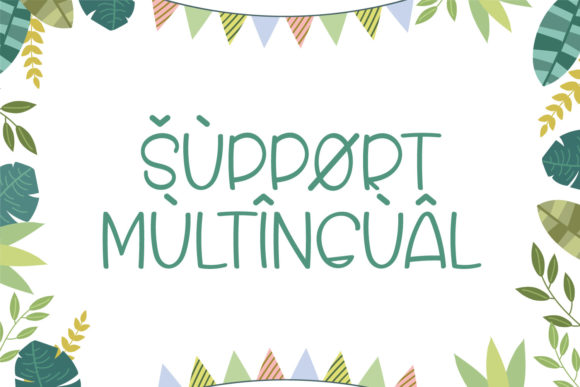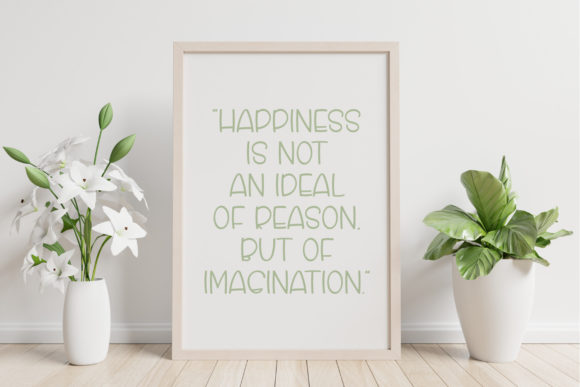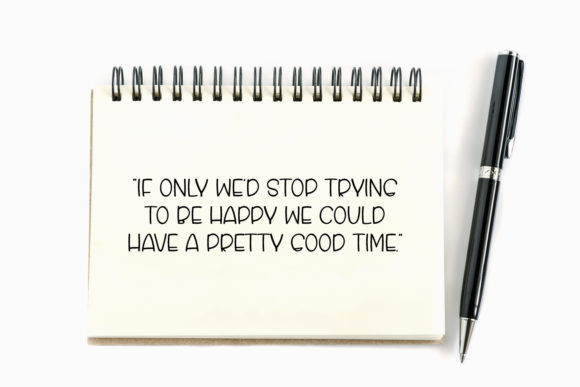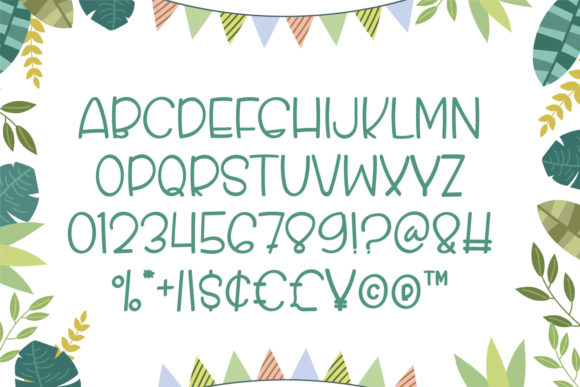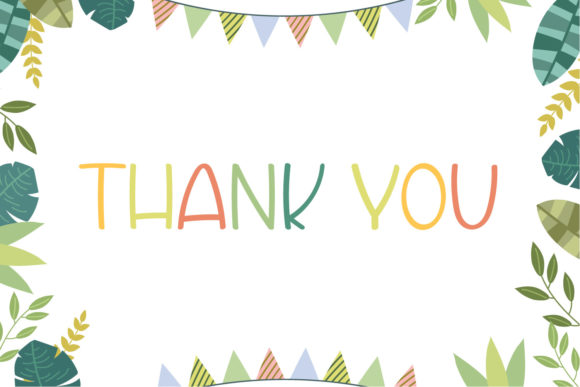
Introduction to Hello Morning Font
As a designer, have you ever found yourself staring at a blank canvas, searching for the perfect font to bring your creative project to life? It’s that moment of inspiration, when everything falls into place, and you know you’ve found the perfect design resource. For me, that moment came when I discovered the Hello Morning Font – a cute, natural, and friendly display font that’s perfect for all chalkboard quotes or teaching material.
With its high-quality design and transparent background, the Hello Morning Font is a valuable addition to any designer’s toolkit. Whether you’re working on a children’s themed design or a project that requires a playful touch, this font is sure to bring a smile to your face. And the best part? It’s available for free download, making it a must-have for any creative project.
- Unique Characteristics: The Hello Morning Font features a unique and elegant design that is sure to add a touch of sophistication to your creative project.
Honest Review: Hello Morning Font
As a designer, I’m always on the lookout for high-quality design resources that can elevate my creative projects. The Hello Morning Font is one such resource that caught my attention recently. In this review, I’ll share my honest thoughts on what works well and what might need improvement.
- ✨ Unique and elegant design style that’s perfect for modern branding projects.
- ✨ High-quality font that’s optimized for both digital and print use.
- ✨ Transparent background, making it easy to use on any background.
- ⚠️ Limited character set, which might be a concern for designers who need to use it for extended text.
- ⚠️ Not suitable for use in situations where a bold, eye-catching font is required.
Overall, the Hello Morning Font is a great addition to any designer’s toolkit. While it has some limitations, its unique design style and high-quality construction make it a valuable resource for creative projects. If you’re looking for a free, elegant font for your branding or design work, the Hello Morning Font is definitely worth considering.
The Hello Morning Font is a high-quality design resource ideal for creative projects that require a modern and elegant touch. With a transparent background, this font is perfect for adding a touch of sophistication to your designs.
To get the most out of the Hello Morning Font, try using it in combination with other design elements, such as bold lines and vibrant colors. You can also experiment with different font sizes and styles to create a unique look.